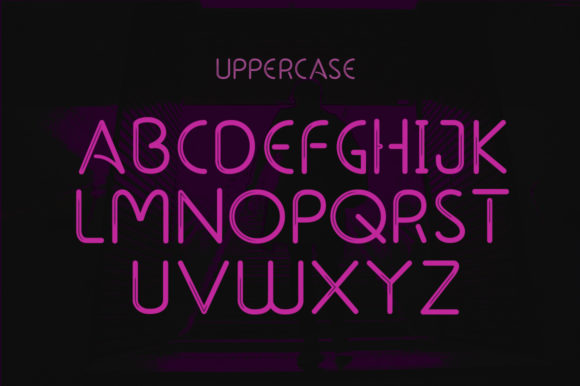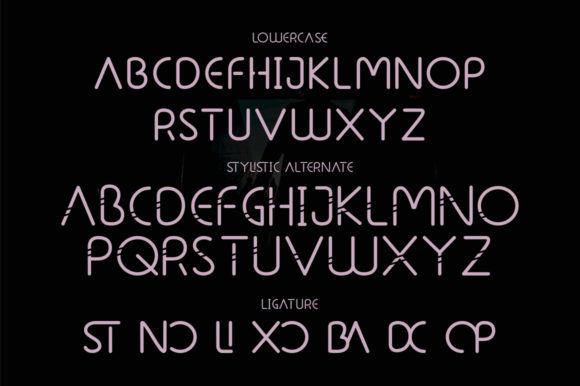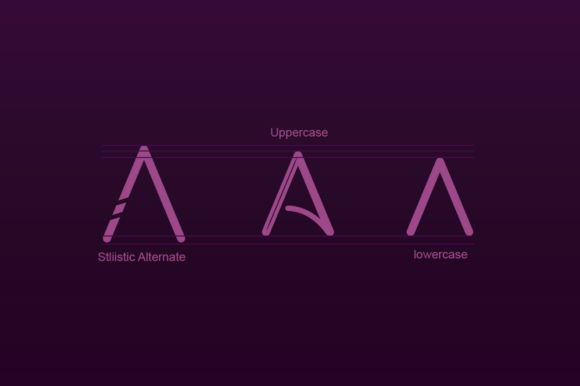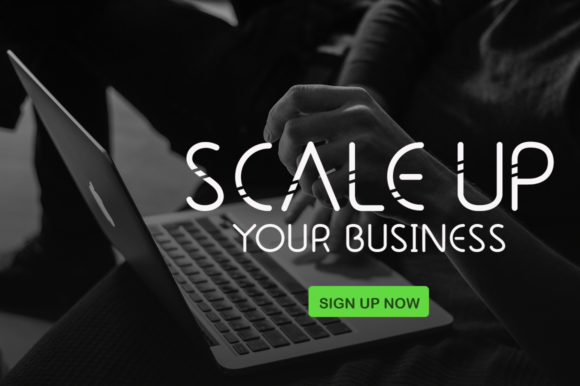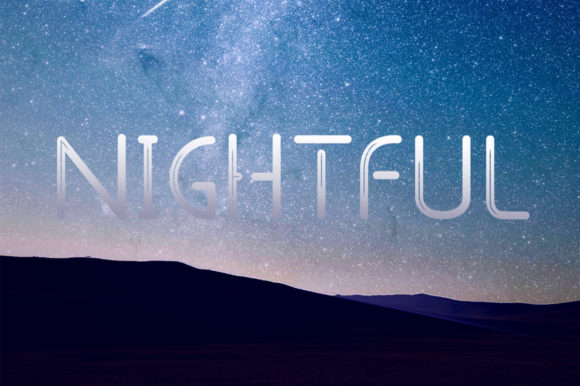
Getting Creative with the Runlion Font
Have you ever stared at a blank canvas, waiting for the perfect spark to ignite your next creative project? For designers, this moment is a familiar feeling – the thrill of bringing a new idea to life. But what if that spark was a font, one that could transport your audience to a futuristic world of mystery and intrigue? Enter the Runlion Font, a modern display font that’s about to take your designs to the next level.
As a valuable design resource, the Runlion Font offers a high-quality, visually striking option for any creative project. With its transparent background and sleek lines, this font is perfect for adding a touch of sophistication to your designs. And the best part? It’s available for a free download, making it an accessible and affordable choice for designers of all levels.
Introduction to Runlion Font
Key Features of Runlion Font
- High-quality design resource for creative projects, offering a unique and stylish look.
- Comes with a transparent background, allowing for easy customization and integration with various designs.
- Features a large character set, including uppercase and lowercase letters, numbers, and special characters, making it suitable for a wide range of creative projects.
- Designed with a modern and sleek aesthetic, making it an ideal choice for digital designs, including logos, icons, and graphics.
Honest Review: Runlion Font
I recently came across the Runlion Font while searching for a high-quality design resource for my creative project. I was immediately drawn to its unique and modern design. After using it in my project, I can confidently say that it’s a great addition to any designer’s toolkit.
- ✨ Unique and modern design that adds a touch of sophistication to any project.
- ✨ High-quality font files that are perfect for print and digital use.
- ✨ Transparent background, making it easy to customize and combine with other design elements.
However, there are some limitations to keep in mind:
- ⚠️ Limited character set, which may not be suitable for longer texts.
- ⚠️ May not be suitable for projects that require a lot of customization or font adjustments.
Overall, I’m impressed with the Runlion Font. It’s a great free download that’s perfect for designers looking to add a touch of modernity to their projects. While it may have some limitations, it’s definitely worth checking out, especially for creative projects that require a unique and high-quality font.
Tips for Getting the Most Out of Runlion Font
For a transparent background, use the Runlion Font on a white or light-colored background. Experiment with different font sizes and styles to create visual interest. Consider pairing the Runlion Font with other high-quality design resources for a cohesive look.
The Runlion Font is perfect for creative projects such as logos, social media graphics, and marketing materials. Its high-quality design makes it ideal for use in presentations, posters, and flyers.
Does the Runlion Font support transparent backgrounds?
Yes, the Runlion Font supports transparent backgrounds. This feature makes it ideal for use in graphic design, web design, and other creative projects where a transparent background is required.